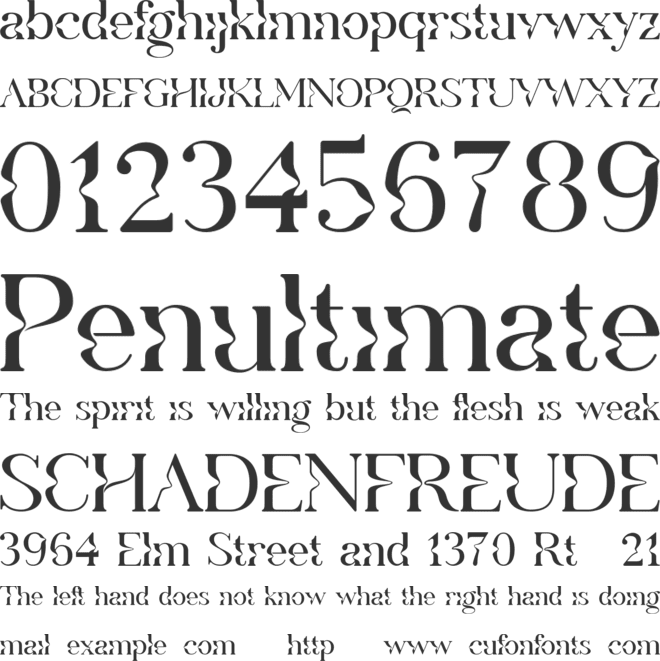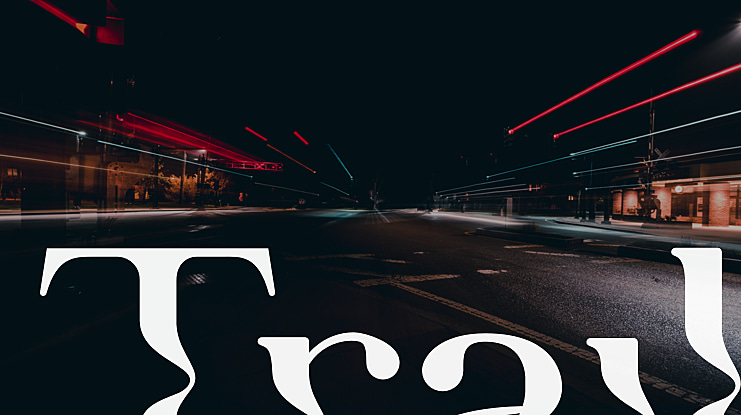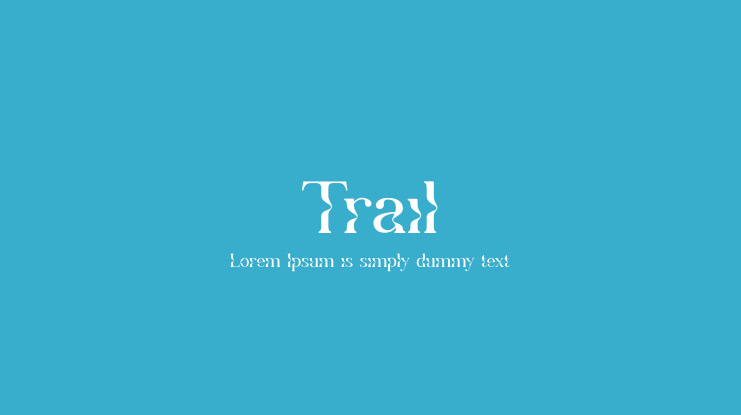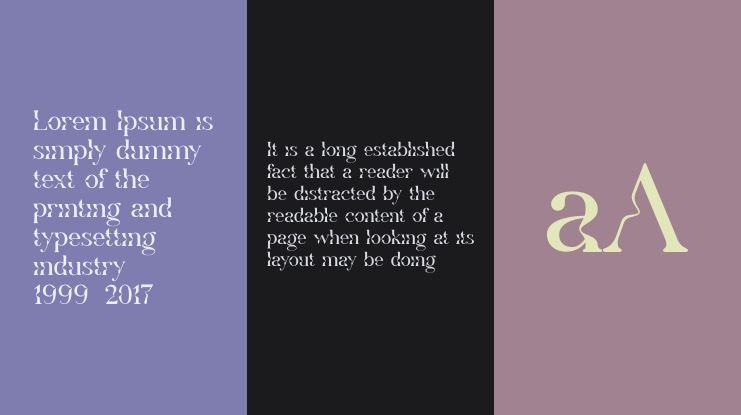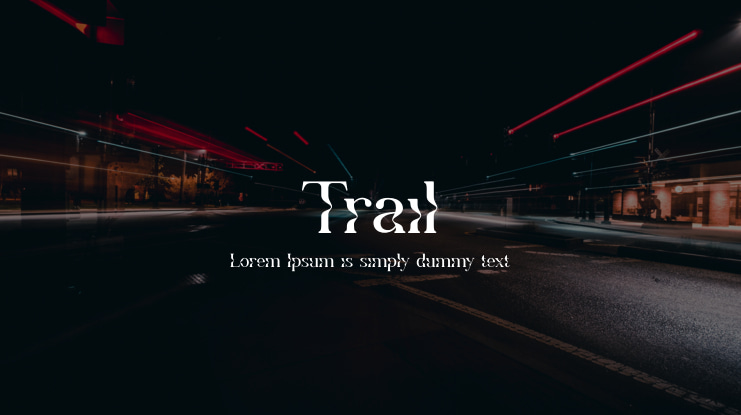
Trail Font
Wahyu Setiya Rahmawan
Introducing TRAIL – a FREE typeface that draws inspiration from psychedelic, retro, and modern design. Its variety of weights offers endless possibilities for creating colorful logos and branding. With TRAIL, you can design with a playful yet sophisticated style. DOWNLOAD now to elevate your designs and stand out from the crowd!
Trail font preview